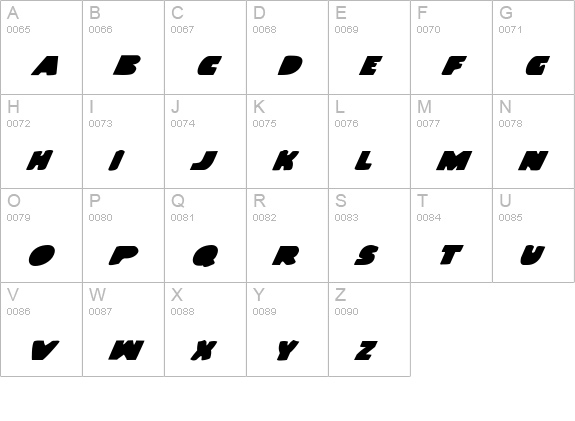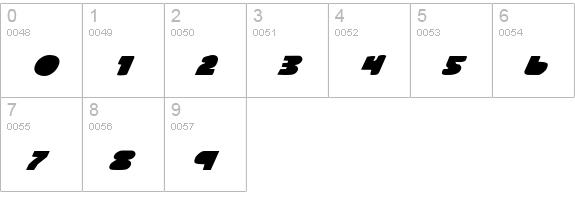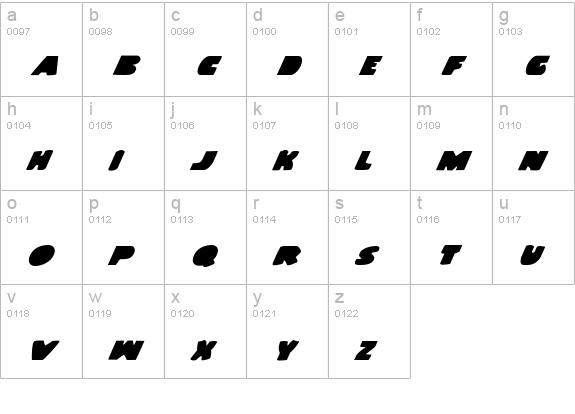
Land Whale Italic is a distinctive, italic variant in the Land typeface family \xE2\x80\x94 well suited to design and typography projects.
Introducing Land Whale Italic, a captivating and versatile font that effortlessly combines elegance with a touch of whimsy. This font is the perfect choice for those seeking a unique and eye-catching typeface that will make their designs stand out from the crowd. Land Whale Italic embraces the essence of modern design, with its sleek and slanted letterforms that exude a sense of movement and fluidity. It captures attention with its graceful curves and subtle embellishments, adding a sense of sophistication to any project. With Land Whale Italic, creativity knows no bounds. Whether you're designing a logo, crafting a headline, or creating stunning graphics, this font offers endless possibilities. Its versatility allows it to effortlessly adapt to a variety of design styles, from elegant and refined to playful and energetic. But what makes Land Whale Italic even more enticing is that it's completely free. Yes, you heard that right! This remarkable font is freely available to download at FontsMarket.com, making it accessible to everyone, regardless of budget or resources. Now you can elevate your designs without breaking the bank. So why wait? Unleash your creativity and embark on a typographic adventure with Land Whale Italic. Download it today from FontsMarket.com and discover the endless possibilities this font has to offer. Get ready to make a lasting impression with this captivating and freely available typeface.